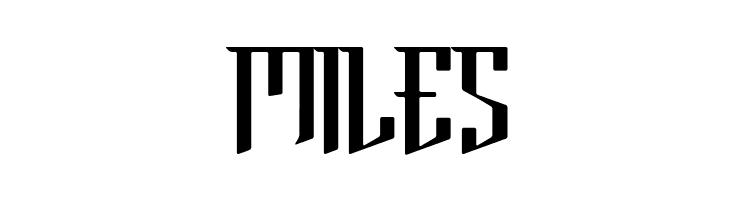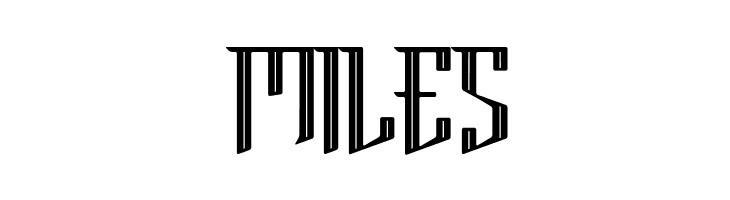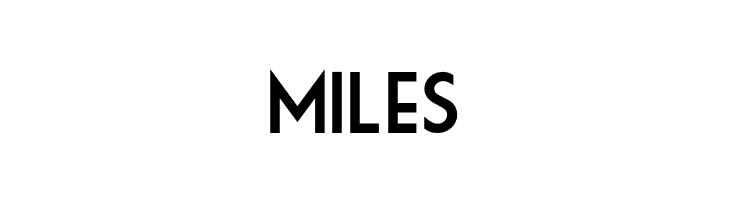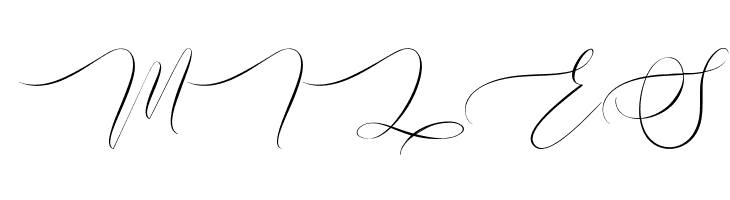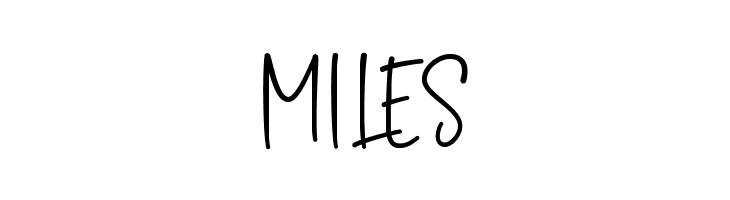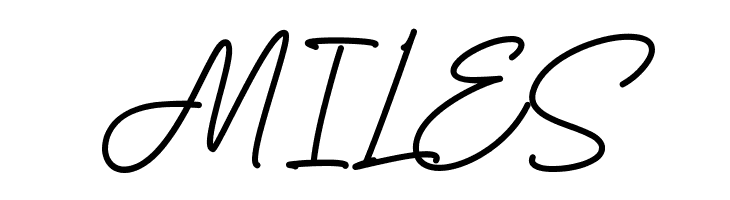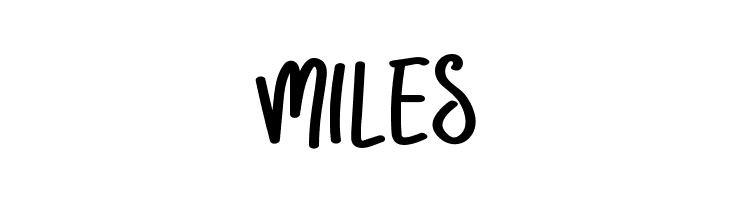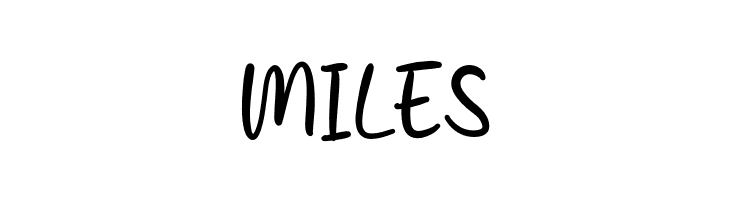
A playful, handwritten font with a dynamic and informal style.
A bold, modern inline font with sharp angles and geometric structure.
A modern cursive font with elegant, flowing strokes.
A bold, angular font with a modern, geometric style.
A playful, casual handwritten font with smooth, rounded edges.
A whimsical, decorative font with elongated serifs and a playful style.
A bold, geometric typeface with clean lines and sharp angles.
An elegant, high-contrast script font with a classic calligraphic style.
A playful, handwritten font with bold, rounded uppercase and cursive-like lowercase letters.
A bold, playful handwritten font with a modern and energetic style.